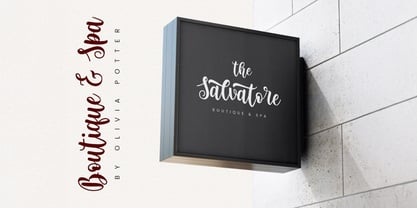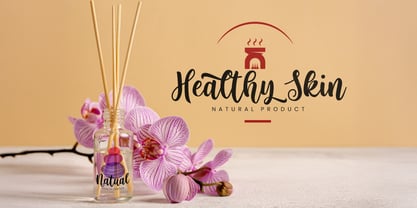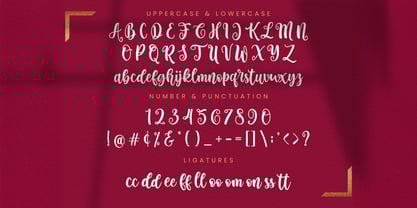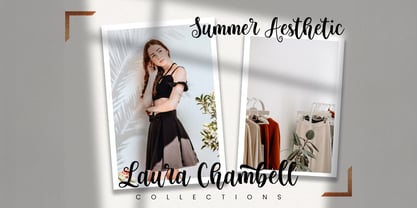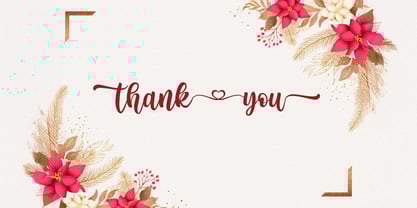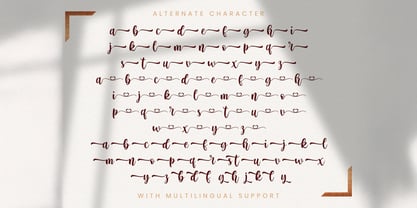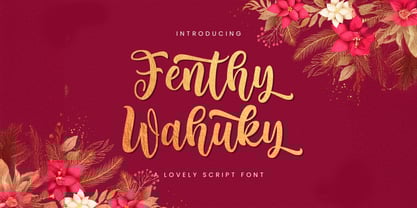
Fenthy Wahuky
by Stringlabs Creative Studio
The Fenthy Wahuky Font Family was designed by Virgiawan Listanto and published by Stringlabs Creative Studio. Fenthy Wahuky contains 1 styles. More about this family
Fenthy Wahuky is a stunning and graceful script font that embodies elegance and charm. With its smooth, delicate strokes and romantic flair, this font adds a touch of sophistication and warmth to any project. Whether you're crafting something formal or whimsical, this lovely script font is sure to make your work shine with a timeless, graceful appeal.
Designers: Virgiawan Listanto
Foundry: Stringlabs Creative Studio